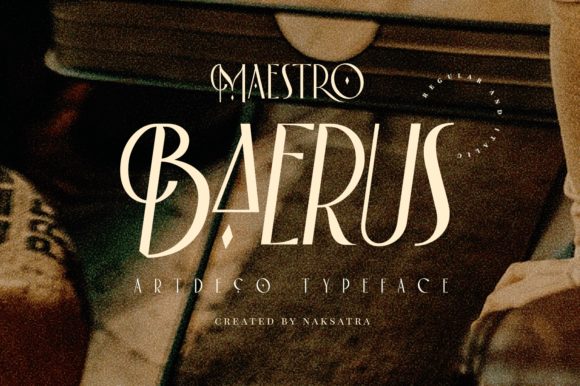
Introducing Baerus Font - The Pinnacle of Sophistication and Modern Design
In a world awash with digital noise, your online presence must radiate distinctiveness. Baerus Font, a masterpiece from Naksatra Type, emerges as the ultimate weapon in your arsenal of visual communication.
With roots deeply entwined in the Art Deco era, Baerus Font exudes an aura of timeless elegance and contemporary allure. Its meticulously crafted characters dance across the screen, each stroke imbued with intention and artistry. Be mesmerized as Baerus transforms your designs into captivating works of art.
Step into the realm of visual enchantment and allow Baerus to elevate your creative vision. Its inherent versatility lends itself to a multitude of design endeavors, from social media posts that demand attention to marketing campaigns yearning for impact. Baerus is your gateway to unlocking a universe of design possibilities.
Immerse yourself in the boundless charm of alternate letters and graceful ligatures, accessible with the touch of a button via OpenType features. Baerus empowers you to craft typography that captivates, leaving an indelible mark on the minds of your audience.
Harness the power of Baerus Font and witness the transformation of your digital creations. Its inherent multilingual support opens up a world of opportunities, allowing you to connect with audiences across borders and cultures.